A Font that Supports Communication Among Users
SQUARE ENIX
Naoki Yoshida
Hiroshi Minagawa
The Final Fantasy series has led the computer role-playing game (RPG) culture in Japan for many years. Over forty video games including the main roman numeral titles have been sold since the launch of Final Fantasy I in 1987, and a total of over 100 million have been shipped to date.
The newest video game in the series titled FINAL FANTASY XIV: A Realm Reborn is scheduled for release in 2013. A long-awaited MMORPG (Massively Multiplayer Online Role-Playing Game) sequel to FINAL FANTASY XI, FFXIV: A Realm Reborn is a game that involves a large number of users who can communicate online, and AXIS Font has been adopted as a tool to facilitate that communication.
Producer & Director Naoki Yoshida, who leads and supervises a team of over 250 individuals in the development of FFXIV: A Realm Reborn, is in charge of game design and planning, and was involved in the production of the Dragon Quest series. Hiroshi Minagawa, who served as director for FINAL FANTASY XII and participated in visual design and character modeling, teamed up with Yoshida as Lead UI.
“There are a number of reasons why we adopted AXIS Font,” Yoshida says. “The most important one, however, is the fact it’s easy to read. It’s neutral and easy to read even on the game screen. There’s a huge amount of text in MMORGP, including chats among users. The game will be provided for several years with communication among the players as central. Since the players will spend many hours playing the game, the text must be easy to read and can’t be fatiguing even when they are staring at the screen for extended periods.”
Minagawa, who handles UI, says, “Fonts that exude history such as Ming-style or Kointai fonts are used often in games that envision fantastic worlds filled with swords and magic. However, I felt that these fonts weren’t suitable for the MMORPG genre where users spend many hours playing. Even though the Ming-style or Kointai fonts are a good match for the universe envisioned by the game, they come across quite strongly, and can be irritating when viewed for long hours on the screen. AXIS Font, on the other hand, has merged into the background of Eorzea, the stage on which FFXIV takes place. We required a font that was neutral and had no idiosyncrasies. We selected AXIS Font in order to show we were particular about a design that symbolized ‘rebirth.’ ”
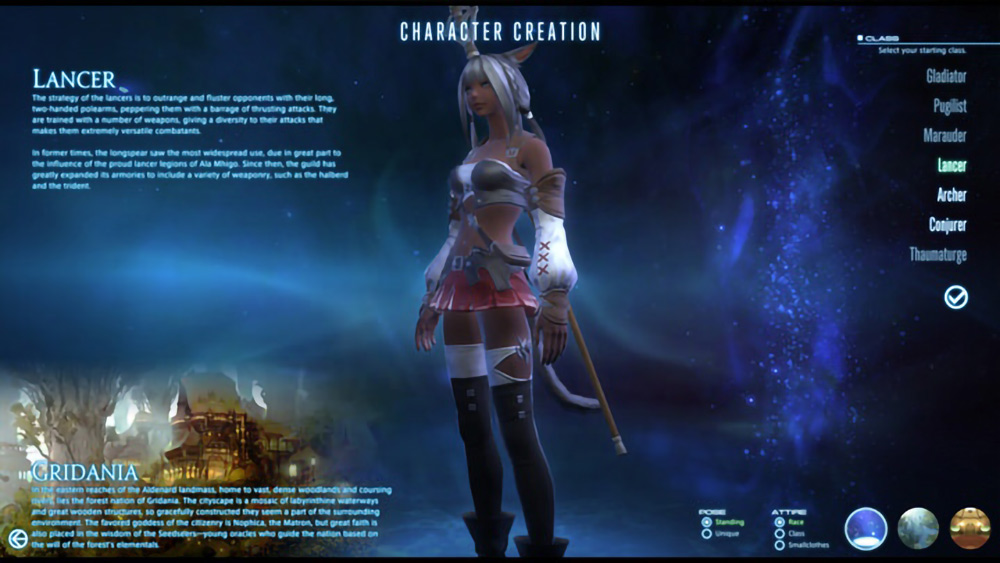
Yoshida says that MMORPGs do not really have endings. FINAL FANTASY XI, which saw its tenth year in 2012, continues to be played. A similar long-term timeline is also envisioned for the soon-to-be-released FFXIV: A Realm Reborn. “As the PC and other such devices evolve and monitor resolution improves rapidly, I believe we will be able to experience the true strengths of AXIS Font. Even at the present stage, you can read small letters without a problem.” (Naoki Yoshida)
Another reason for the adoption of AXIS Font is the fact it supports many languages. The FINAL FANTASY series also has many fans overseas, and Square Enix has set its sights on global expansion, including North America and Europe. “When FFXIV players communicate in chats, they input using their native languages, so there’s a mix of Japanese, English, German, and French texts on the same server. We needed a font that doesn’t appear unnatural even when various languages mingle in the chat window. That’s why I made such an impassioned appeal for the use of AXIS Font in FFXIV: A Realm Reborn.” (Hiroshi Minagawa)
“When we inserted AXIS Font, it fit right in without seeming out of place, even though the screen is extremely graphical and displays numerous parameters. It’s plain, basic, and doesn’t overpower you. I felt that only AXIS Font would do.” (Naoki Yoshida)
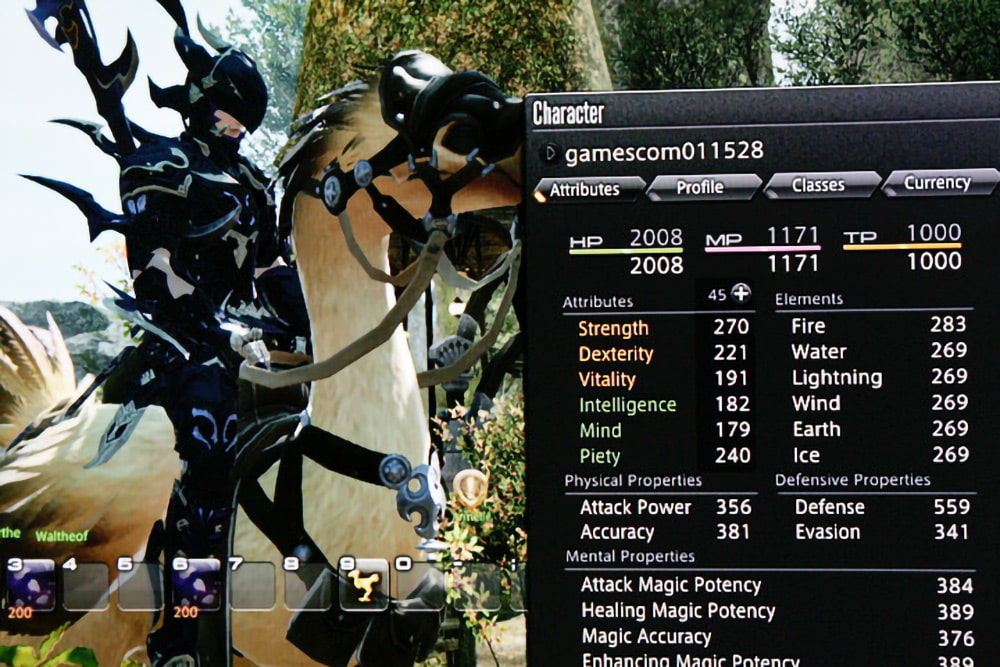
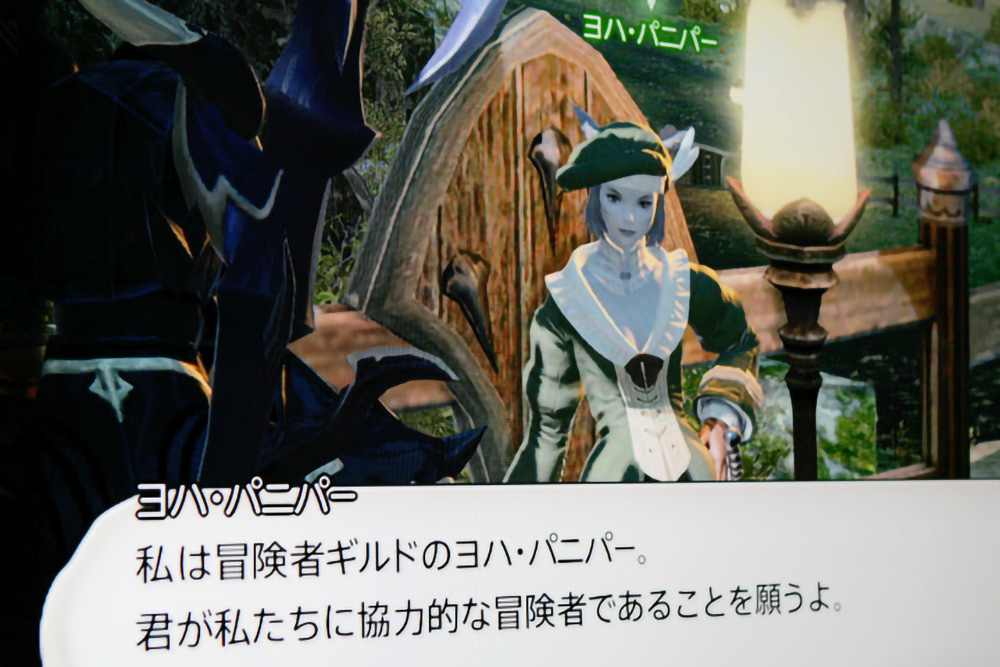
Approximately ten years ago, Minagawa, who is very particular about fonts and UI, created bitmap fonts for each game. “It’s nothing more than a dream at present, but I think we should have a special game font, like a corporate font. I’d like to design it myself, but since the number of characters in Japanese is huge, it’s difficult to make special outline fonts for each game. Someday I’d like to give it a try with the cooperation of Type Project.
AXIS Font is slated for use in manuals and pamphlets for FFXIV: A Realm Reborn as well as booklets that explore the game’s universe.